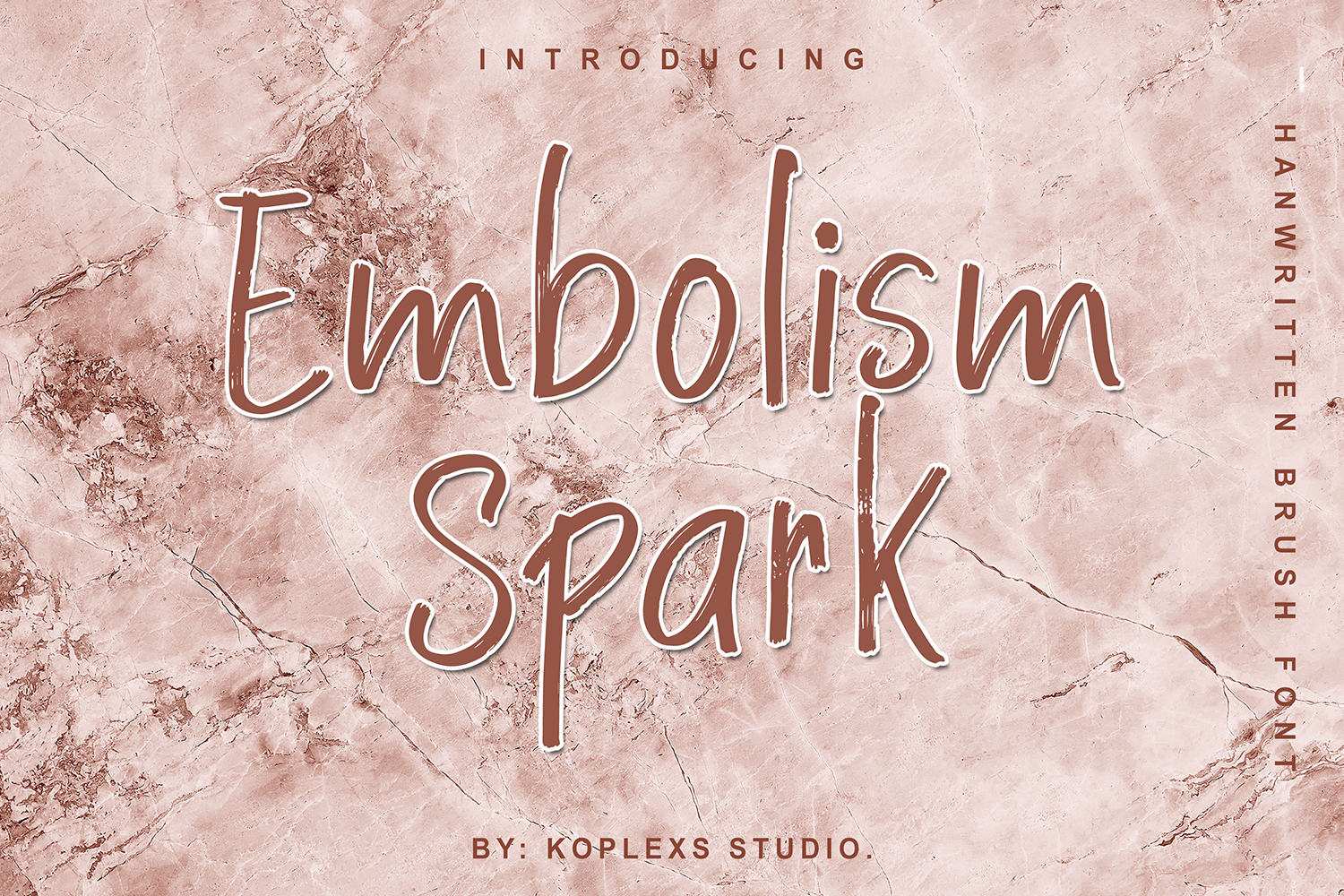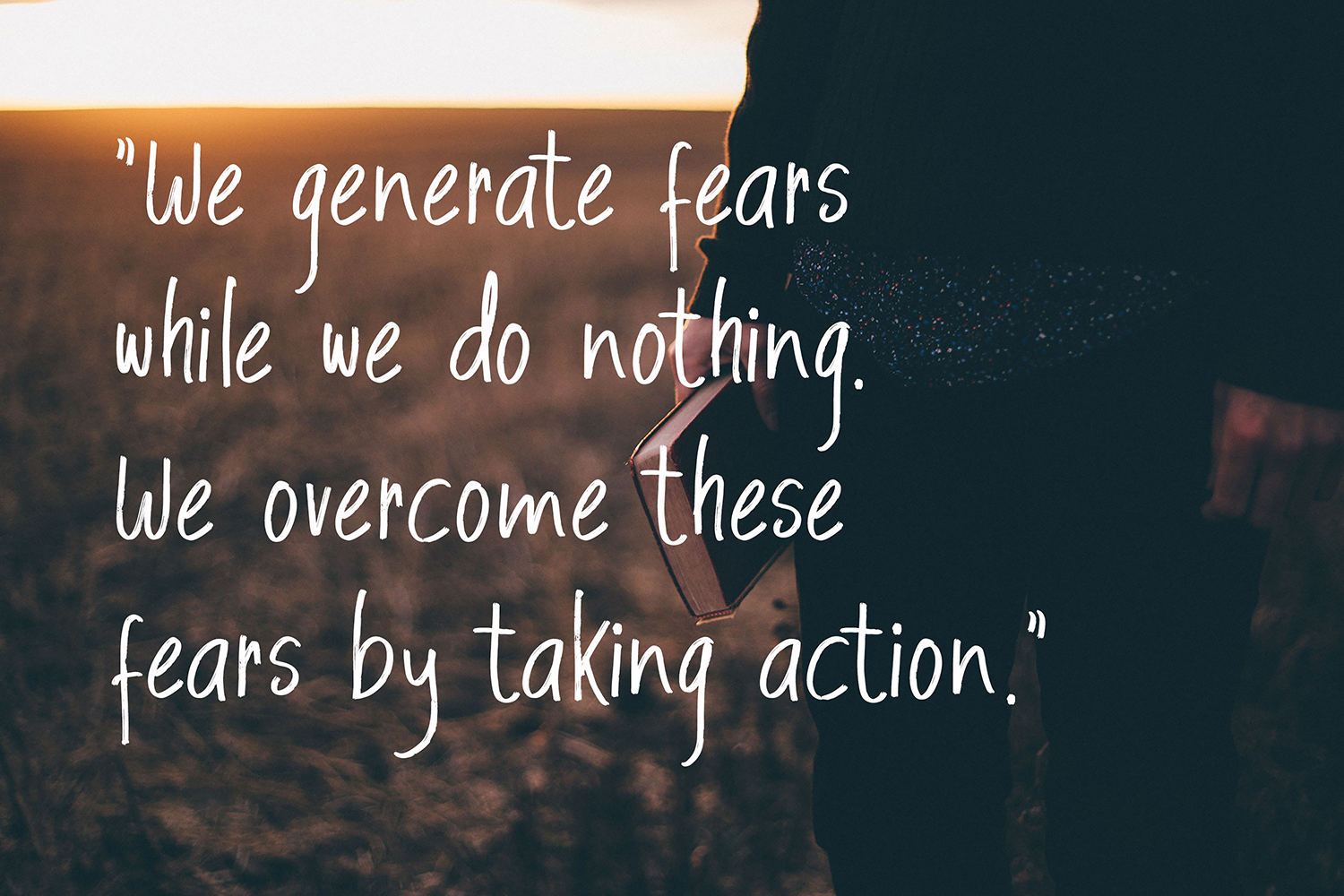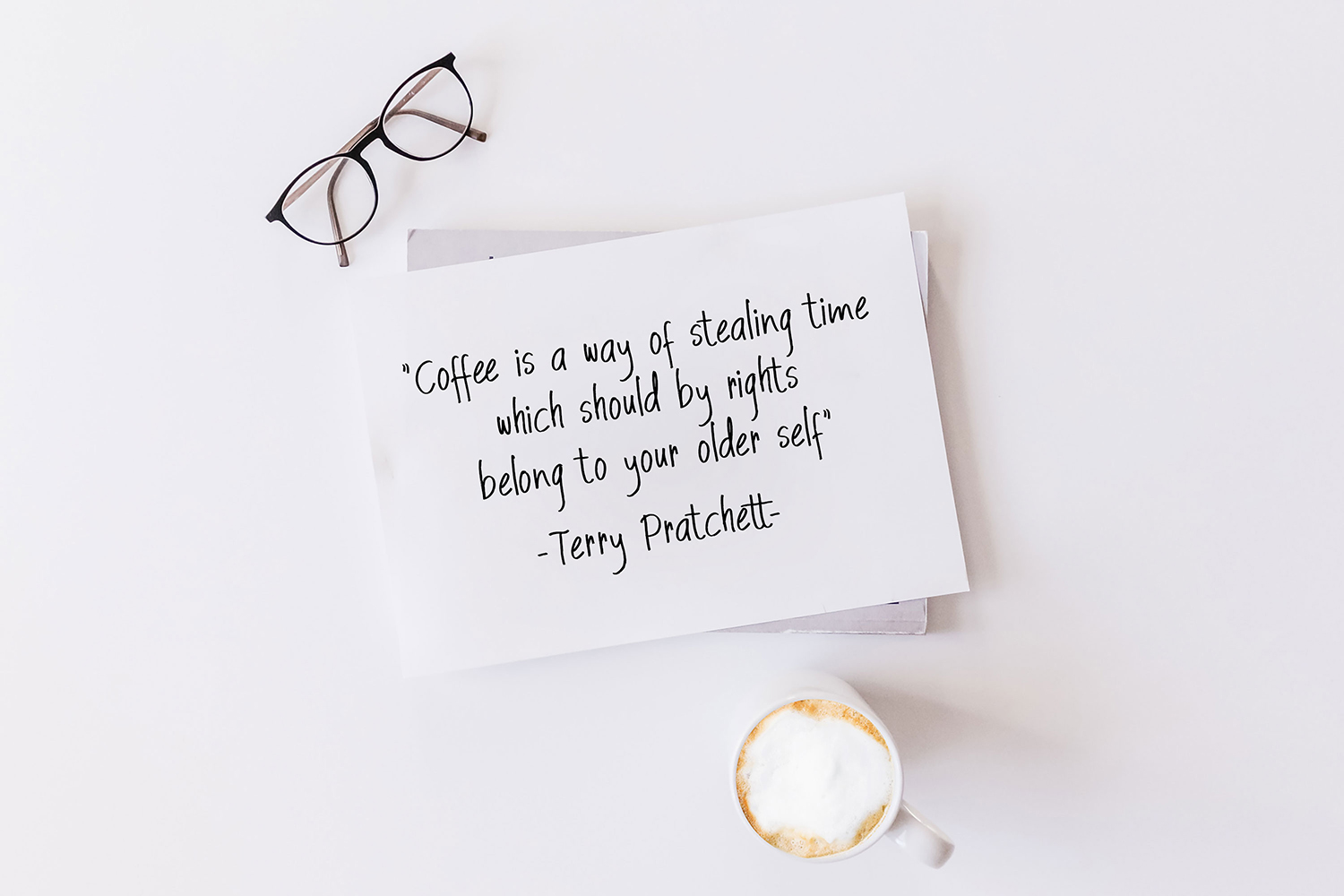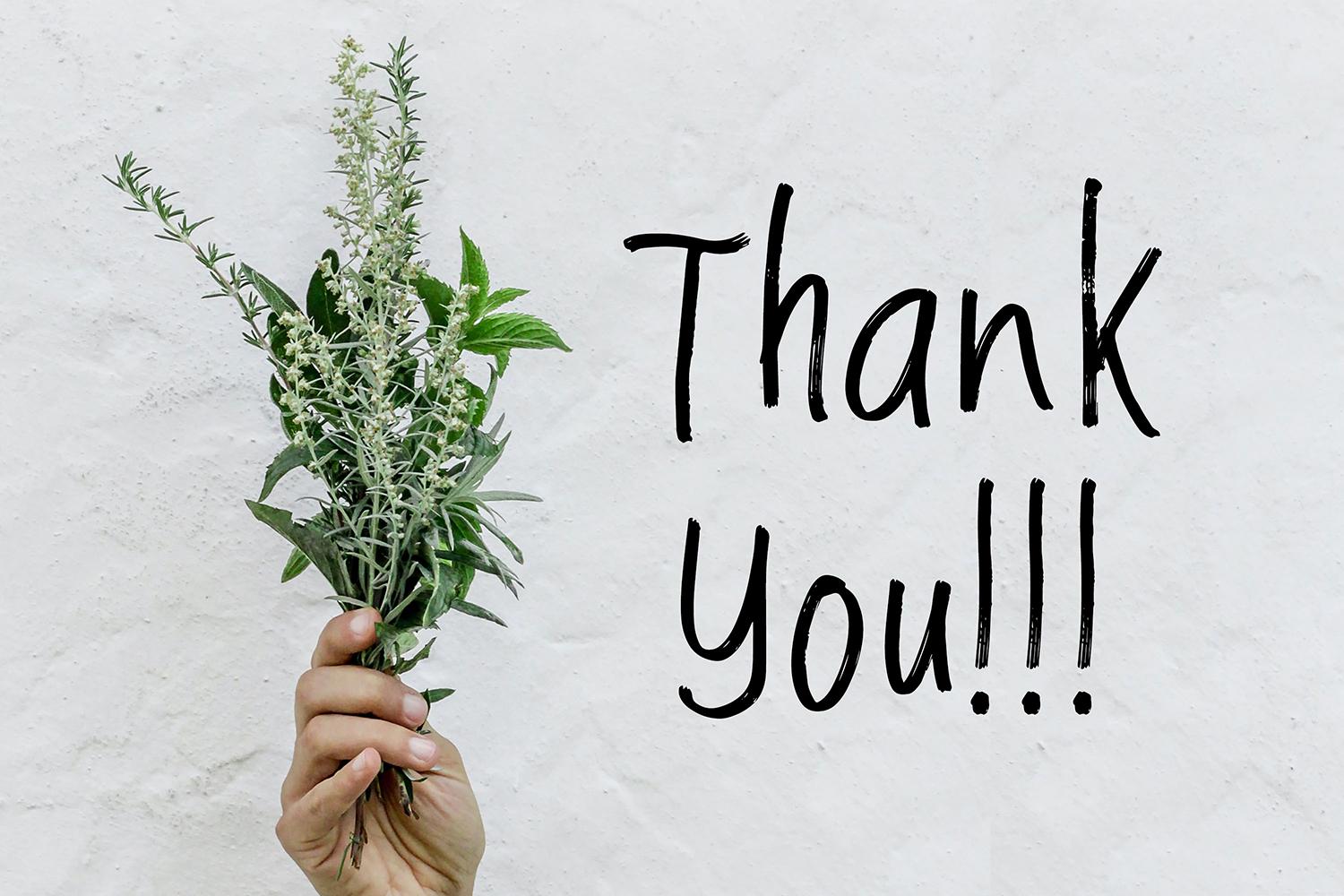
Embolism Spark Free Font
Introducing Embolism Spark Free Font, a versatile and organic script font perfect for a multitude of project designs. This font is tailor-made for various applications, including branding, greetings, beautiful quotes, fun packaging design, clothing, product packaging, magazine headers, poster designs, and beyond. Let Embolism Spark infuse your creations with its natural charm, making your designs stand out and leave a lasting impression. Unlock the endless possibilities and creative opportunities this font brings to your projects, and watch as it effortlessly elevates every aspect of your visual endeavors. This free typeface was designed by a talented Koplexs Studio. If you like it don’t forget to check out the full version.